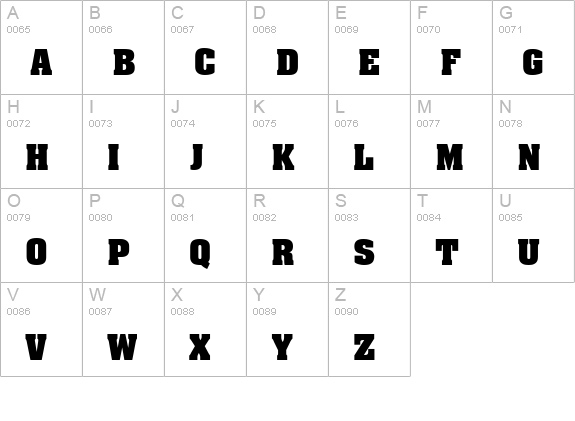
QTAtchen Regular Font Details
QTAtchen Regular is the standard, neutral variant in the QTAtchen typeface family \xE2\x80\x94 well suited to general body text, paragraphs, and standard typographic work.
The QTAtchen Regular font is a visually stunning typeface that will captivate any reader. Its sleek and modern design makes it perfect for a wide range of projects, from branding and logo design to website headers and print materials. With its clean lines and balanced proportions, QTAtchen Regular exudes a sense of professionalism and elegance. The font's versatility is further enhanced by its ability to seamlessly adapt to various design styles, whether it be minimalistic and clean or bold and eye-catching. One of the most appealing aspects of QTAtchen Regular is that it is available for free. Yes, you read that right! This incredible font can be downloaded freely at FontsMarket.com, making it accessible to designers and creatives at all levels, regardless of their budget. Whether you're a seasoned designer looking to add a touch of sophistication to your latest project or a beginner just starting to explore the world of typography, QTAtchen Regular is the perfect choice. Its simplicity and elegance will make your designs stand out and leave a lasting impression on your audience. So why wait? Head over to FontsMarket.com now and download QTAtchen Regular for free. Elevate your designs to new heights and unleash your creativity with this stunning typeface.